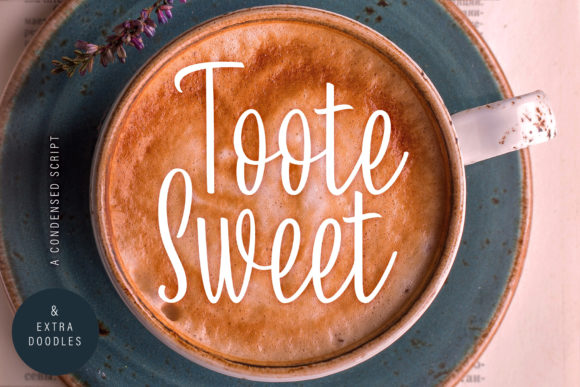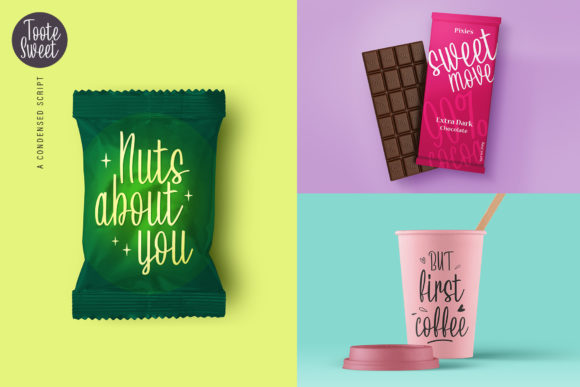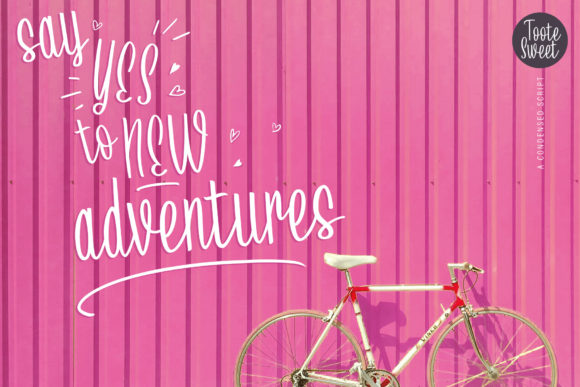
About Toote Sweet Script Font
Introducing “The Toote Sweet,” a clean and lean script font that exudes a highly energetic vibe. With its upright and condensed letter forms, this font is not only visually appealing but also versatile, making it suitable for various design applications, even in the smallest of spaces.
“The Toote Sweet” stands out with its playful attitude and ability to create a sense of sunshine wherever it’s used. Whether you’re working on branding, headlines, logos, posters, or any project that requires a script font with a dynamic and energetic feel, this font delivers with its distinctive and lively character.
Its clean and lean design, coupled with the energetic vibe, makes “The Toote Sweet” perfect for big sizes and small spaces alike. Logos designed with this font convey a playful and memorable brand identity. Headlines, posters, and other designs crafted with “The Toote Sweet” showcase a dynamic and lively vibe, making them visually appealing and adaptable to various contexts.
The versatility of “The Toote Sweet” makes it a great choice for a variety of creative applications, providing a script font that adds a touch of energy and playfulness to any design context.
In summary, “The Toote Sweet” is more than just a font; it’s a design companion that brings a clean and lean script with a highly energetic vibe to your projects. Embrace its playfulness for branding, headlines, logos, and more, and let “The Toote Sweet” infuse your designs with a dynamic and lively character.